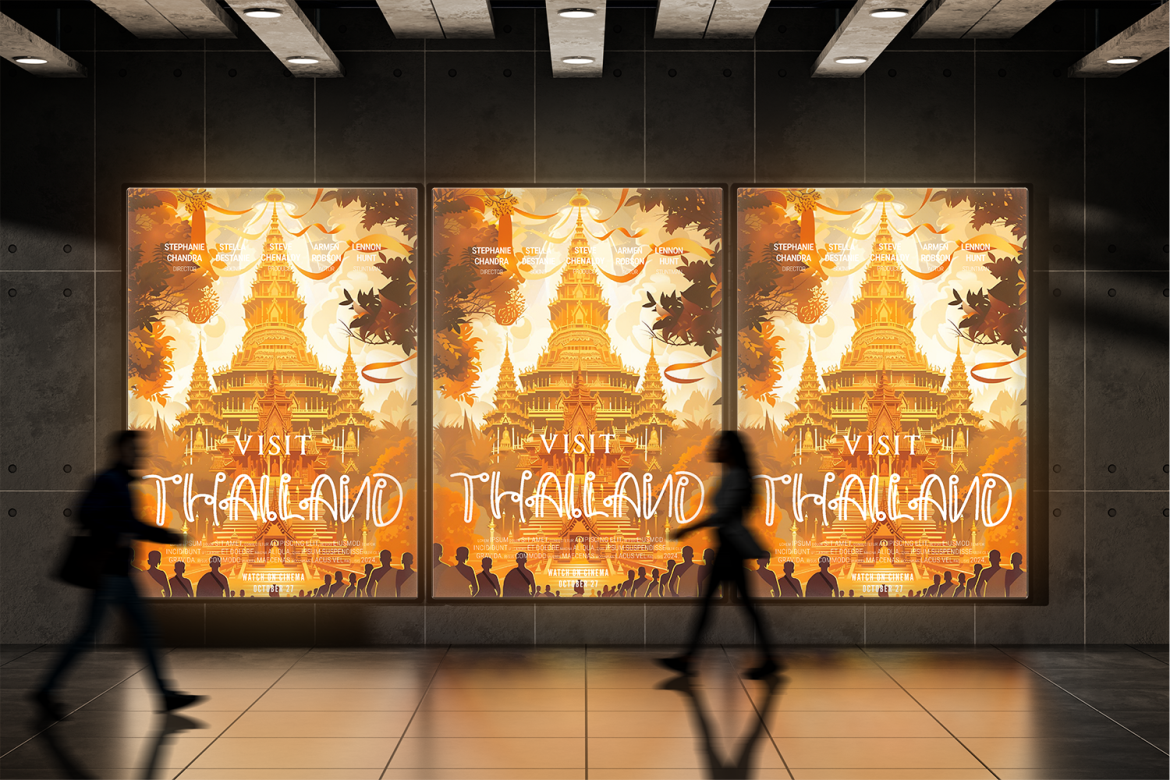
7 Best Travel and Tourism Fonts for Marketing, Packaging, and Promotion
In the travel industry, first impressions often determine whether a customer explores further or books with a competitor. While stunning destination photography and engaging travel experiences are essential, typography plays a surprisingly powerful role in shaping a brand’s identity. A carefully chosen font can communicate adventure, luxury, authenticity, relaxation, or cultural richness before a single word is read.
The best travel and tourism font helps businesses create memorable visual identities across websites, tour brochures, hotel signage, travel packaging, social media campaigns, and destination branding. Typography contributes to brand clarity, trust, and recognition, helping travelers navigate information while creating emotional connections with destinations and experiences. Travel brands and hospitality businesses consistently rely on strong visual identity systems, including typography, to improve recognition and customer confidence.
Whether you’re launching a travel agency, operating a resort, managing a tour company, or promoting a tourism destination, selecting the right font can strengthen your branding and make your business stand out in a highly competitive market.
In this guide, we’ll explore seven outstanding travel and tourism fonts that can elevate your brand across digital and print marketing channels.
Initial Suggestion
Before choosing a font, identify the personality of your travel business.
Match Typography to Your Travel Experience
Different travel brands require different visual styles.
Examples:
• Luxury resorts often benefit from elegant serif fonts.
• Adventure tours may use rugged display fonts.
• Tropical destinations work well with relaxed handwritten styles.
• Cultural tourism brands can incorporate region-inspired typography.
Think Across All Branding Assets
Your font should work consistently on:
• Travel websites
• Tour brochures
• Hotel signage
• Social media graphics
• Travel merchandise
• Advertising campaigns
• Booking platforms
Prioritize Readability
Travelers often browse quickly when researching destinations. Clear typography improves user experience and helps visitors find information efficiently. Typography is a key component of navigation and brand communication in the travel industry.
Build a Recognizable Identity
A consistent font system strengthens brand recall and creates a more professional image across every customer touchpoint.
1. Sukhara – Thai Style Font
Sukhara is a culturally inspired display font that captures the beauty and atmosphere of Southeast Asian destinations. Its distinctive character shapes create an exotic and memorable appearance while remaining highly readable. The font immediately evokes travel, cultural exploration, and destination storytelling, making it ideal for tourism campaigns, travel agencies specializing in Asia, boutique resorts, and destination branding projects. It offers a unique visual identity that helps travel businesses stand out from generic corporate competitors.
Pros
• Strong cultural personality
• Highly memorable branding
• Excellent display impact
• Unique tourism appeal
• Asian travel agencies
• Destination branding
• Cultural tourism
• Travel posters
• Resort marketing
2. Elmonta – Rustic Classic Serif Font
Elmonta combines timeless serif elegance with a rustic character that feels authentic and trustworthy. The font creates a premium impression while maintaining warmth and approachability. Its refined details make it highly effective for hospitality brands that want to communicate heritage, comfort, and quality service. It works exceptionally well across websites, hotel branding, brochures, and luxury tourism campaigns.
Pros
• Premium appearance
• Strong readability
• Timeless branding value
• Professional versatility
• Boutique hotels
• Luxury lodges
• Heritage tourism
• Travel websites
• Hospitality branding
3. Ocean Brezze – Rough Brush Lettering Font
Ocean Brezze delivers a free-spirited and adventurous personality inspired by coastal experiences and outdoor exploration. Its hand-painted brush strokes create movement and energy, making it ideal for brands that promote surfing, island destinations, beach adventures, and outdoor travel experiences. The dynamic letterforms immediately communicate excitement and freedom. Similar brush-style travel fonts are often associated with adventure, outdoor, and destination-focused branding.
Pros
• Energetic brush style
• Strong adventure appeal
• Authentic handmade look
• Excellent visual movement